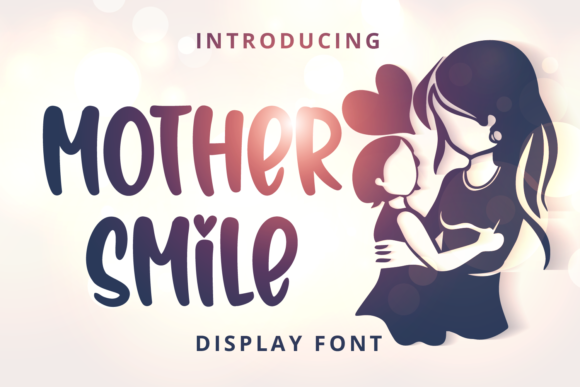
Introducing Mother Smile Font, a Typographic Masterpiece Crafted to Ignite Joy and Celebration!
Step into a world of enchantment, creativity, and boundless joy with Mother Smile Font. An eye-catching display font that is sure to leave an indelible mark on your designs. Mother Smile is the ingenious brainchild of Planetz Studio, a team of passionate font artisans who have meticulously crafted each letter to evoke a sense of wonder and delight. This font is not just a collection of characters; it's an experience that transforms your words into captivating visual stories.
The Mother Smile Font is more than just a font; it's an invitation to explore the realm of imagination. With its playful and exuberant style, Mother Smile Font adds a touch of whimsy to any project. Whether you're a seasoned designer seeking fonts for crafts, digital design, or captivating presentations, or simply someone looking to add a personal touch to their greeting cards, this font is the perfect companion.
Let Mother Smile Font be your font of choice for those special moments that deserve a touch of magic. From heartfelt love letters to cheerful invitations, this font will infuse your words with an infectious joy that will leave a lasting impression. Mother Smile Font is the perfect blend of charm and versatility, seamlessly adapting to a wide range of design aesthetics. Its playful curves and expressive strokes bring a sense of delight to any project, making it the ideal choice for creating unique and unforgettable designs.